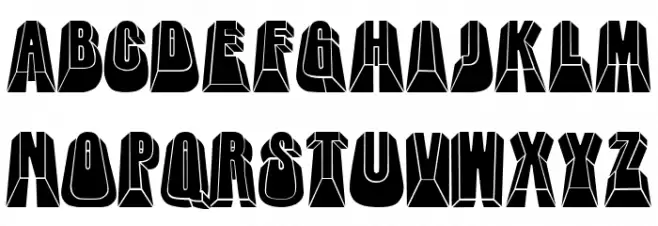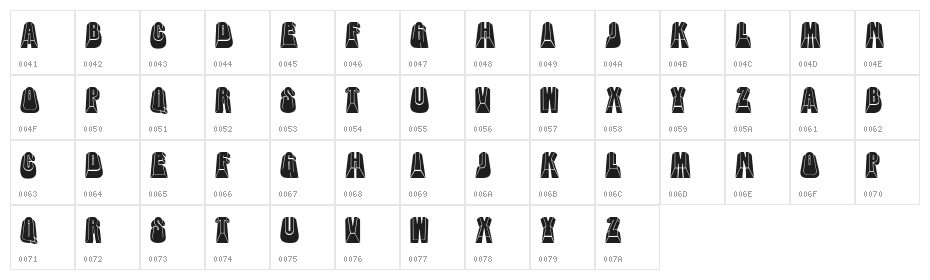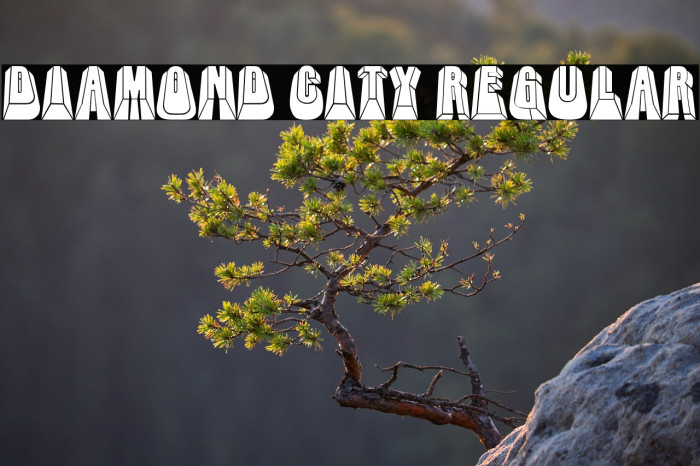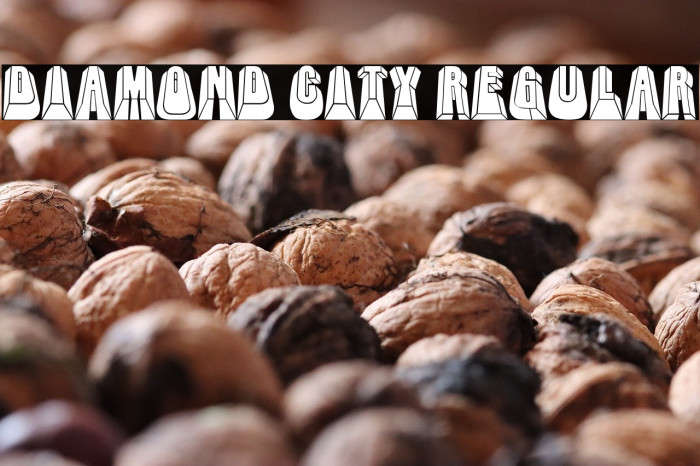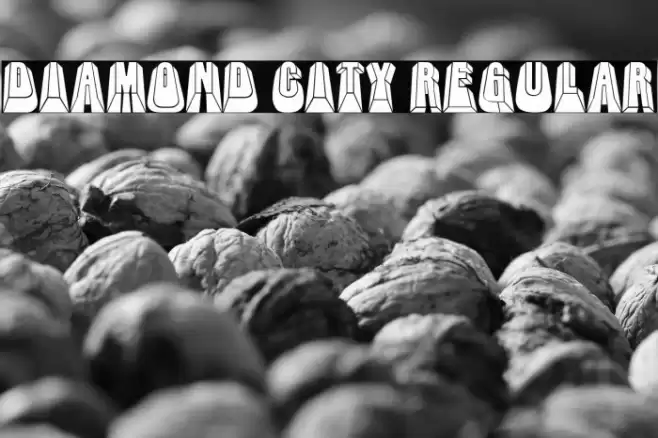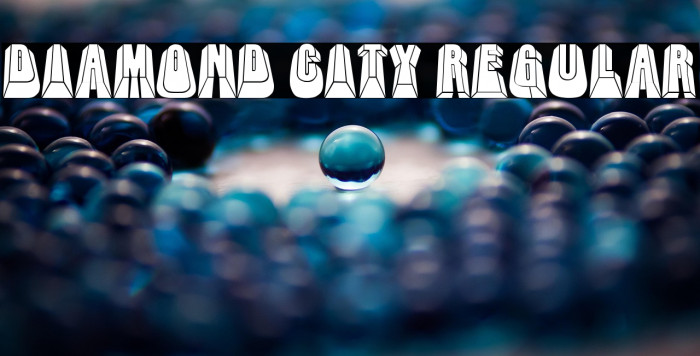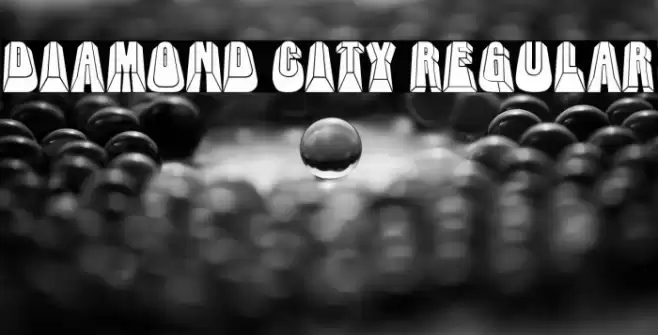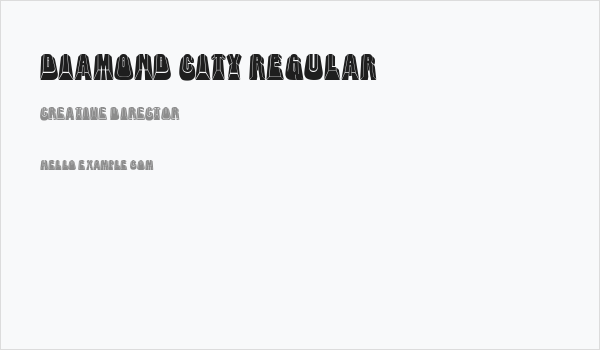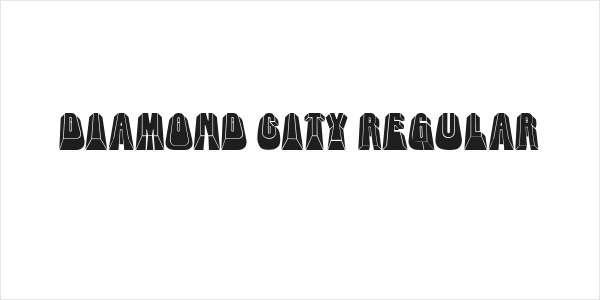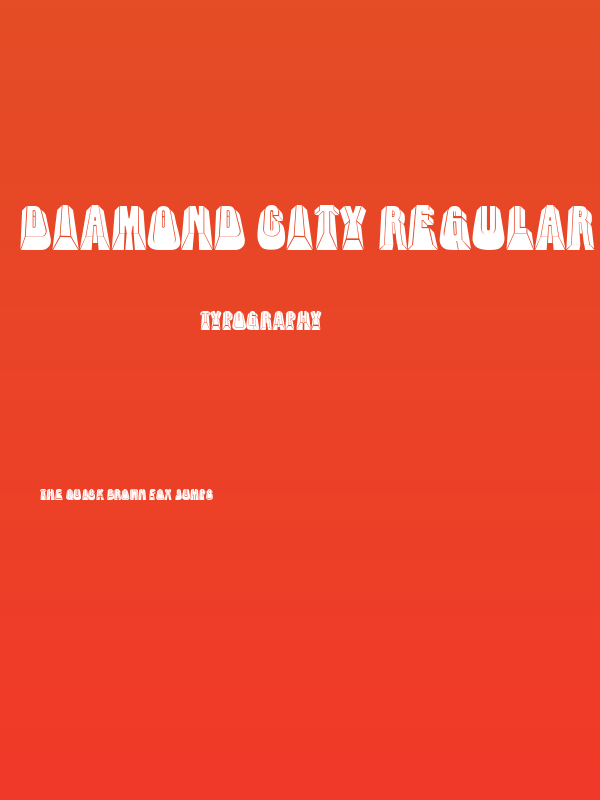
Diamond City Regular Font
Diamond City Regular Description
This font features a bold and striking 3D effect, with each letter appearing as if it is carved from a solid block. The geometric shapes and sharp angles give it a futuristic and dynamic appearance. The high contrast between the thick, solid parts of the letters and the thin, outlined edges creates a sense of depth and dimension. This font is highly decorative, making it ideal for eye-catching designs. The uppercase letters are uniform in height and width, contributing to a cohesive and structured look.
| Overall Style | Futuristic, Decorative |
| Proposed Projects | Ideal for posters, logos, video game graphics, and any project requiring a bold, standout typeface. |